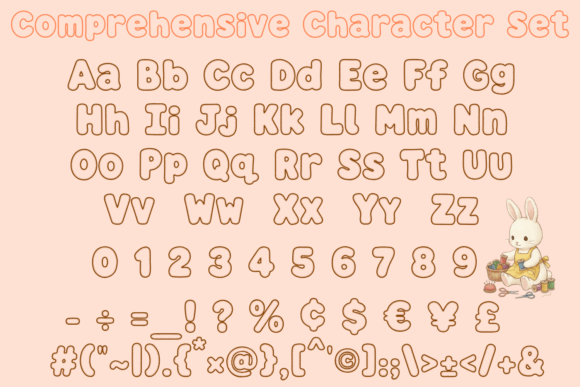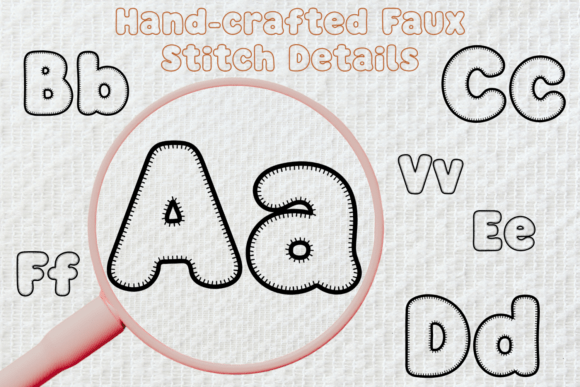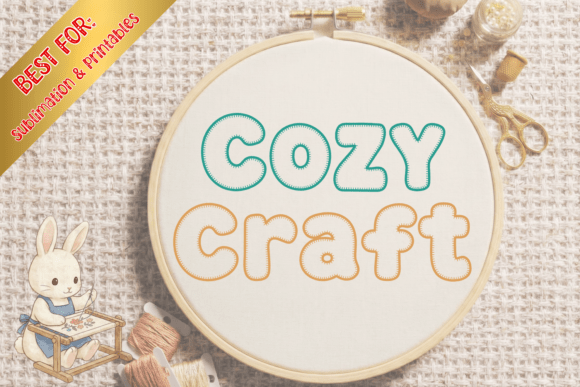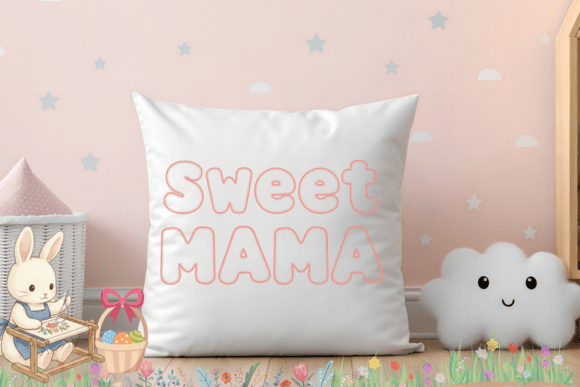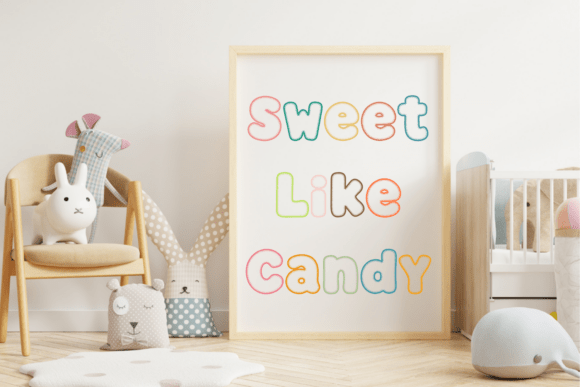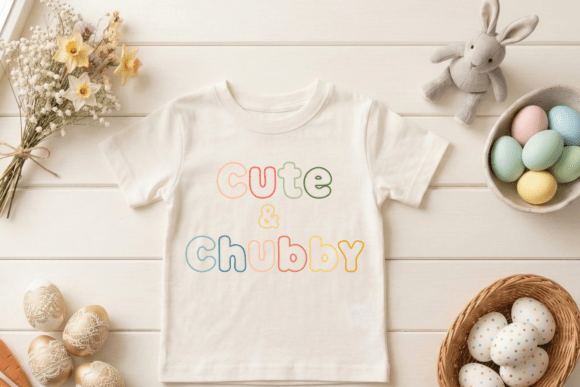
Brighten Up Your Creations with Bunny Patch Font
Do you remember the thrill of rummaging through grandma’s sewing box, uncovering vintage embroidery floss and patches? For many of us, those moments sparked a lifelong love for handmade crafts. Now, imagine bringing that same cozy, hand-crafted feel to your projects with ease.
Enter the Bunny Patch Font, a charming faux stitch font designed specifically for crafters and makers. This adorable typeface boasts a bouncy, bubbly patchwork aesthetic, complete with imperfectly perfect dashed inner lines that evoke the look of real farmhouse embroidery. Perfect for adding a warm, quilted touch to your designs, the Bunny Patch Font is a must-have for anyone looking to elevate their craft projects.
As a designer, you’ll love the versatility of the Bunny Patch Font, which can be used in a variety of applications, from apparel and sublimation to vinyl crafts and digital designs. Whether you’re creating nursery wall art, custom mugs, or aesthetic digital planners, this font is sure to bring a touch of handmade charm to your work.
- Unique Characteristics: Hand-drawn, whimsical design with a mix of bold and delicate lines
Bunny Patch Font Review
I recently had the chance to work with the Bunny Patch Font, and I’m excited to share my thoughts on it. Overall, I was quite impressed with this playful, whimsical font.
- Expressive and detailed illustrations: The Bunny Patch Font comes with a wide range of adorable, hand-drawn illustrations that add a personal touch to any design project.
- Fun and versatile: This font is perfect for creating eye-catching headlines, titles, and even entire branding systems.
- High-quality design: The Bunny Patch Font is meticulously crafted, with smooth lines and well-balanced typography.
- Limited character set: While the font includes a decent number of characters, it may not be suitable for extensive text-based projects.
- No multilingual support: Unfortunately, the Bunny Patch Font only supports a limited set of languages, which may be a concern for global branding efforts.
Overall, the Bunny Patch Font is a delightful addition to any designer’s toolkit. While it has some limitations, its unique charm and versatility make it a great choice for projects that require a touch of whimsy and personality.
Tips: Use the Bunny Patch Font to create playful and whimsical designs, such as children’s party invitations or social media graphics.
Tips: Use the Bunny Patch Font to create unique and eye-catching graphics, such as posters or flyers.
Tips: Use the Bunny Patch Font to create engaging and creative presentations, such as children’s educational materials or marketing materials.
The Bunny Patch Font is ideal for:
- Social media graphics and advertisements
- Posters and flyers for events or promotions
- Children’s educational materials and textbooks